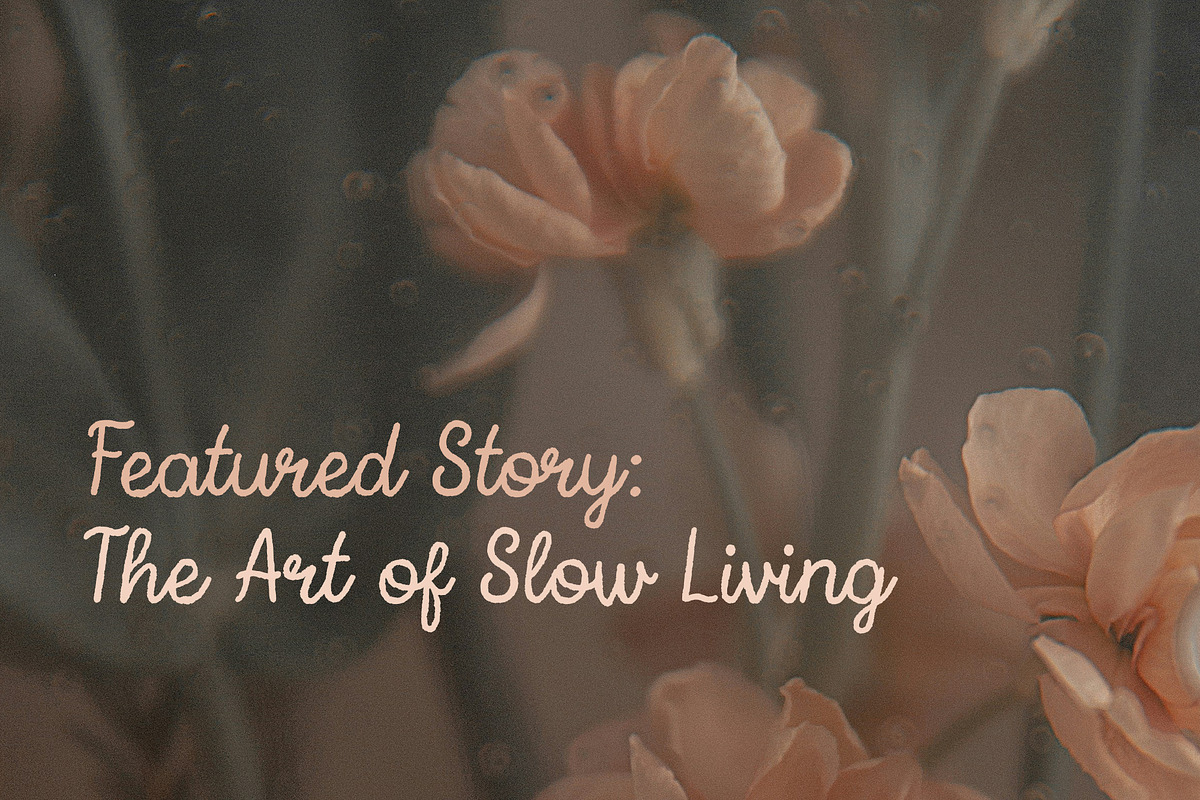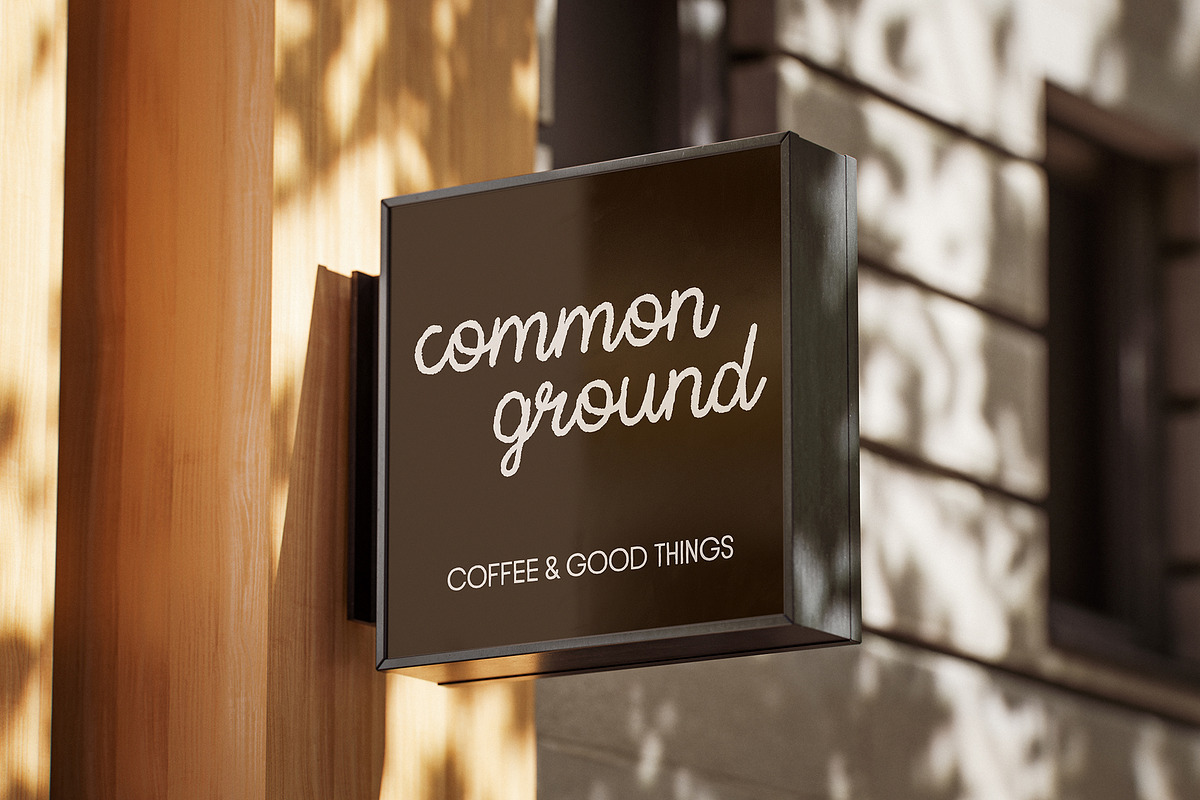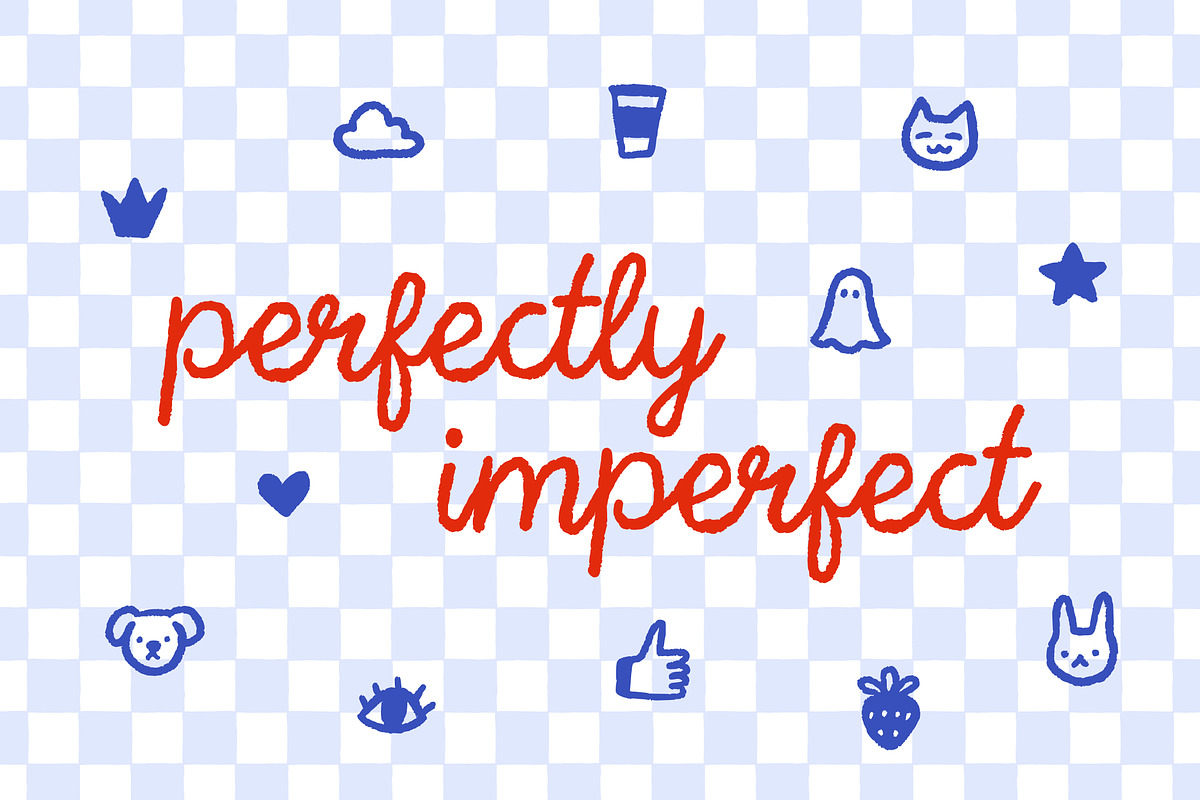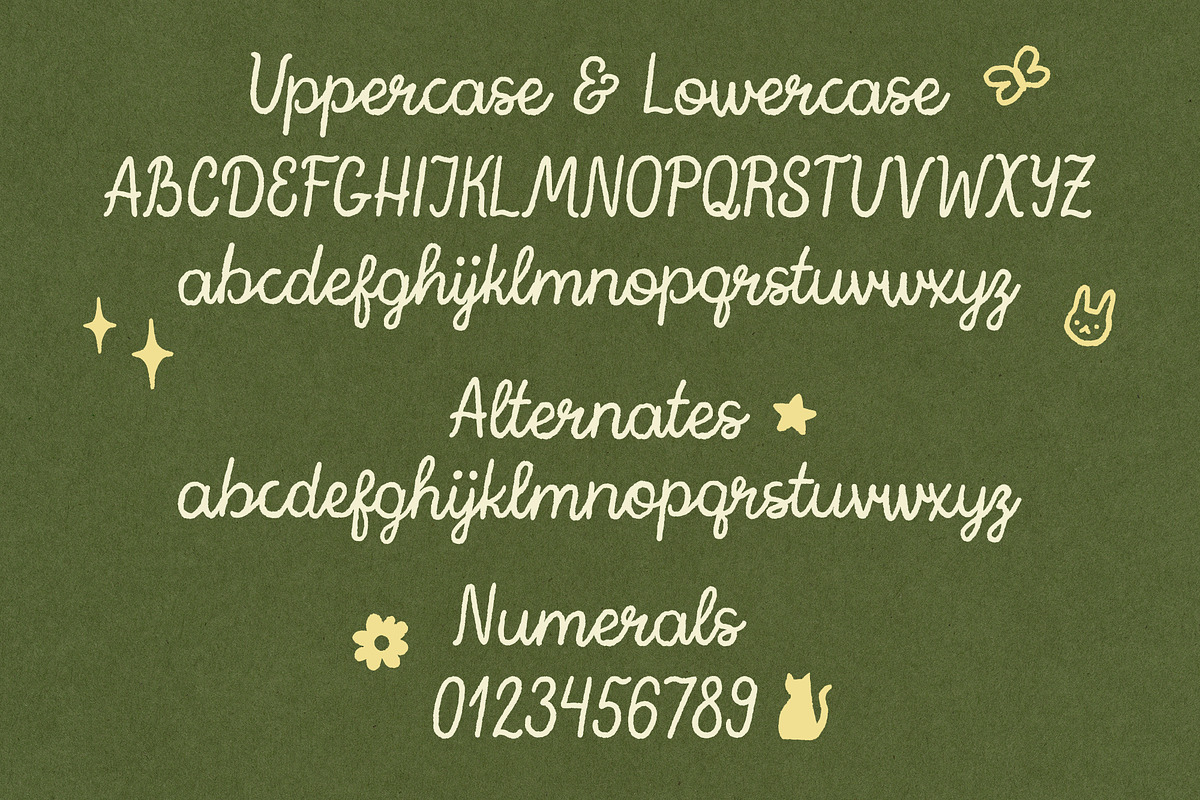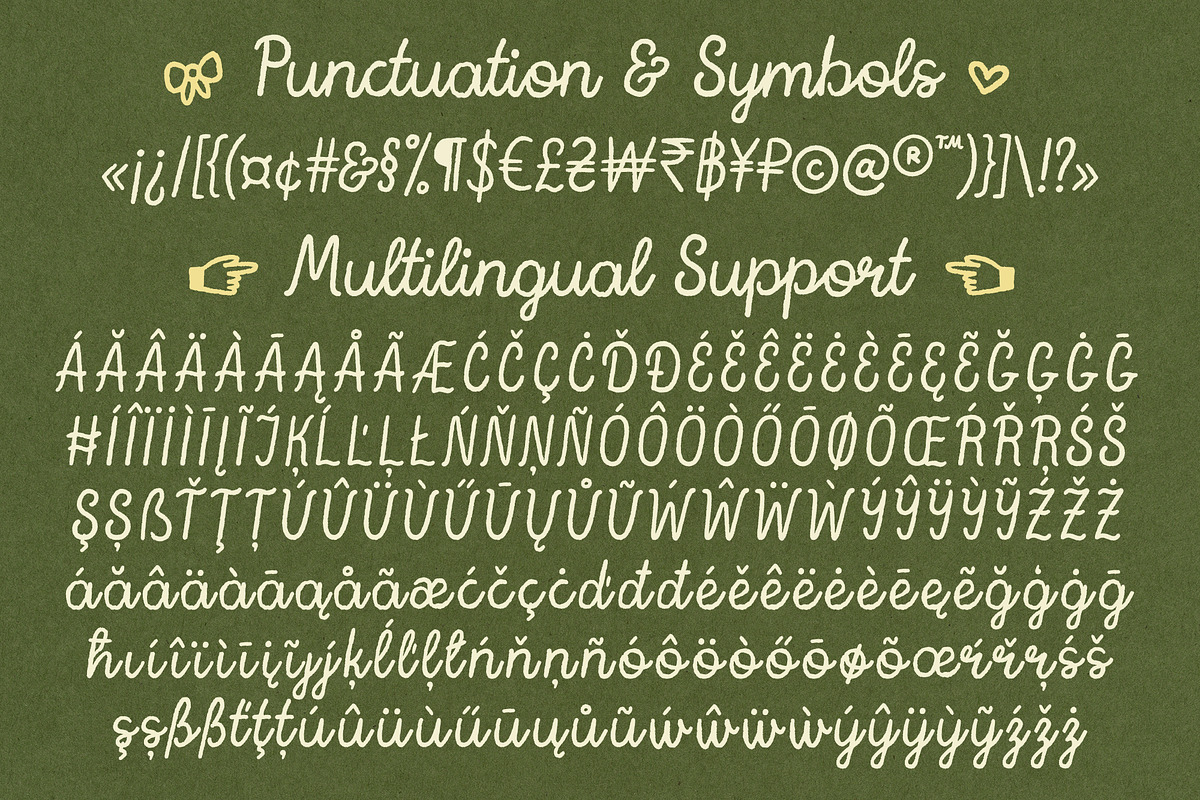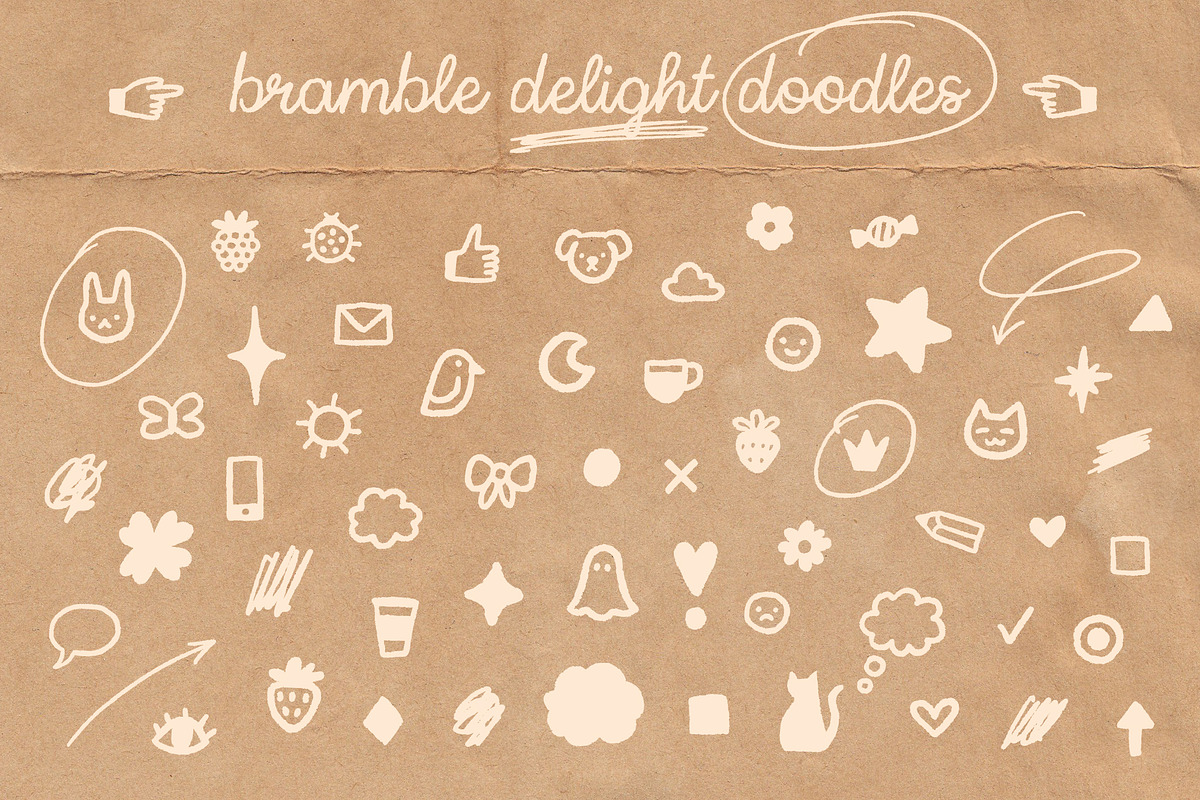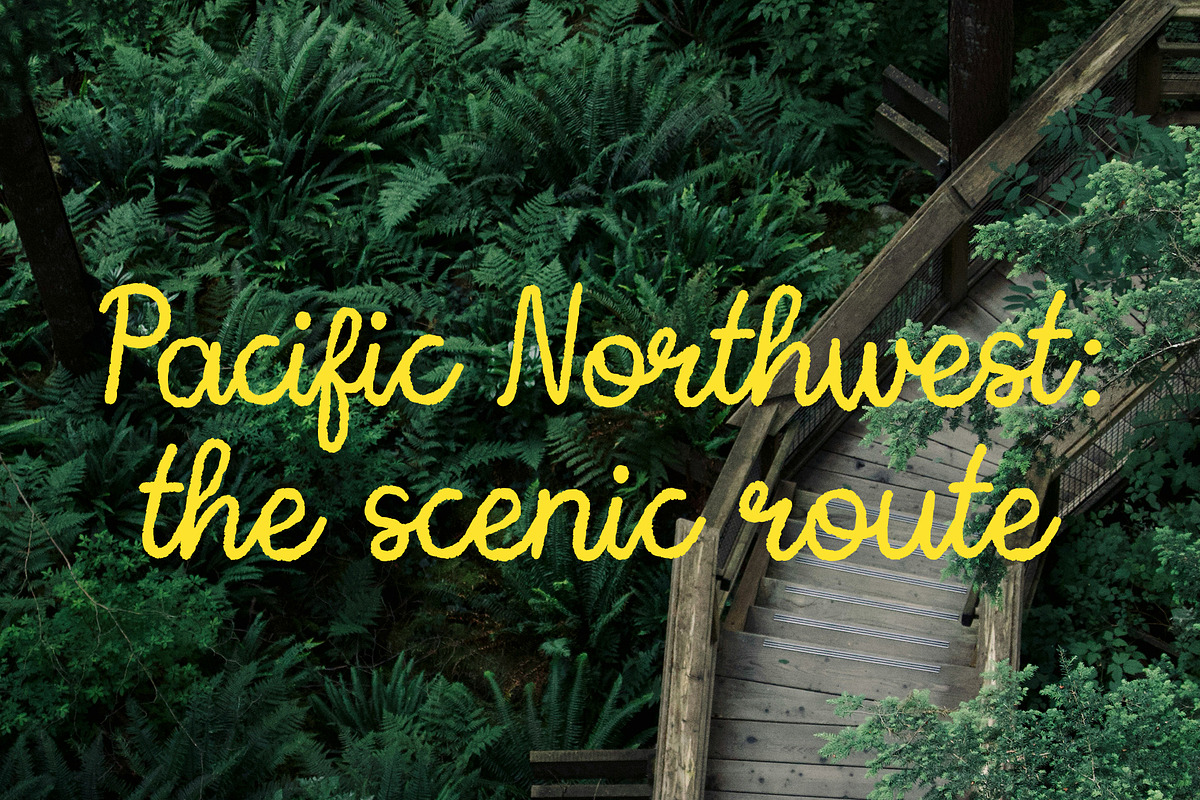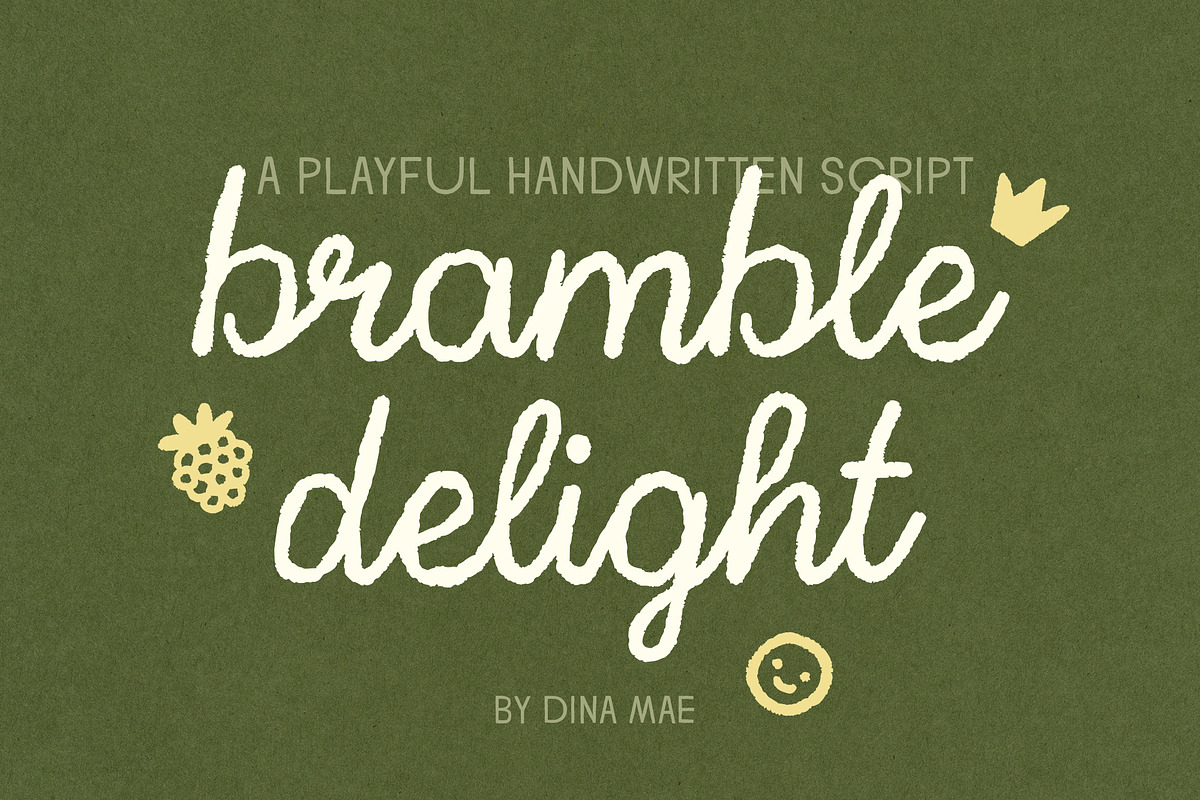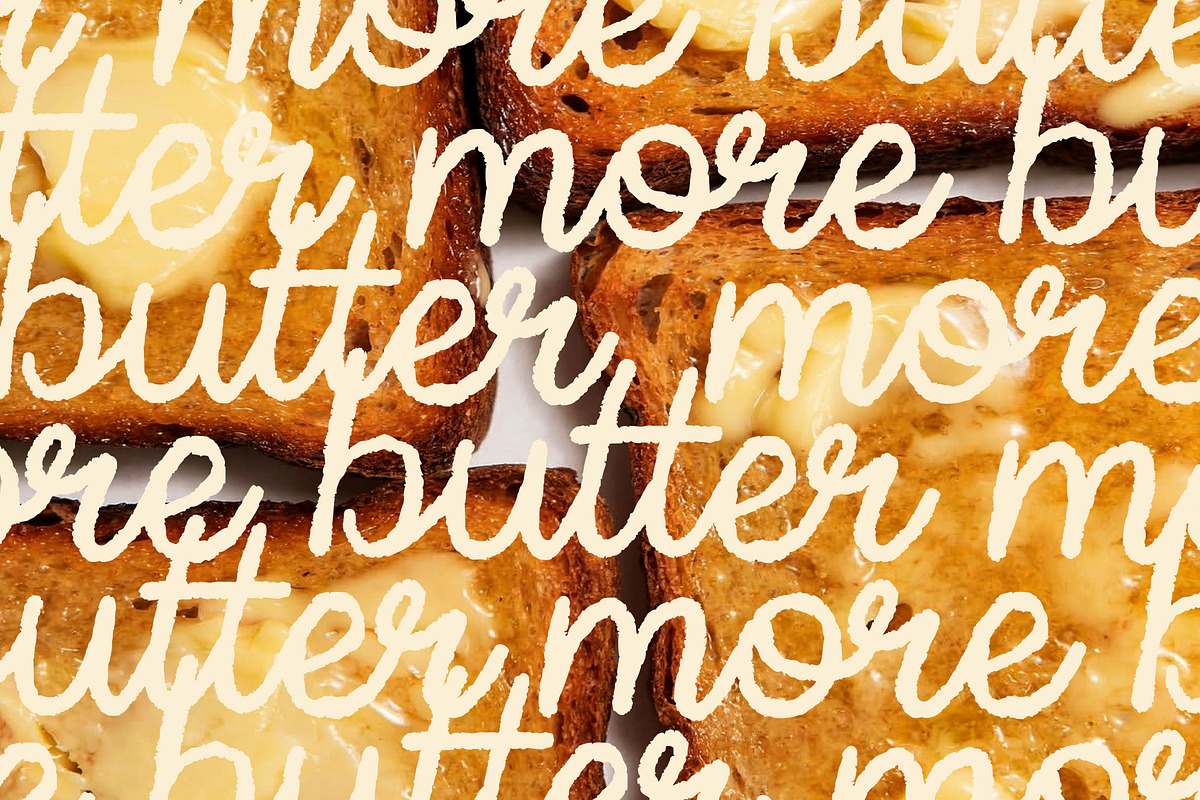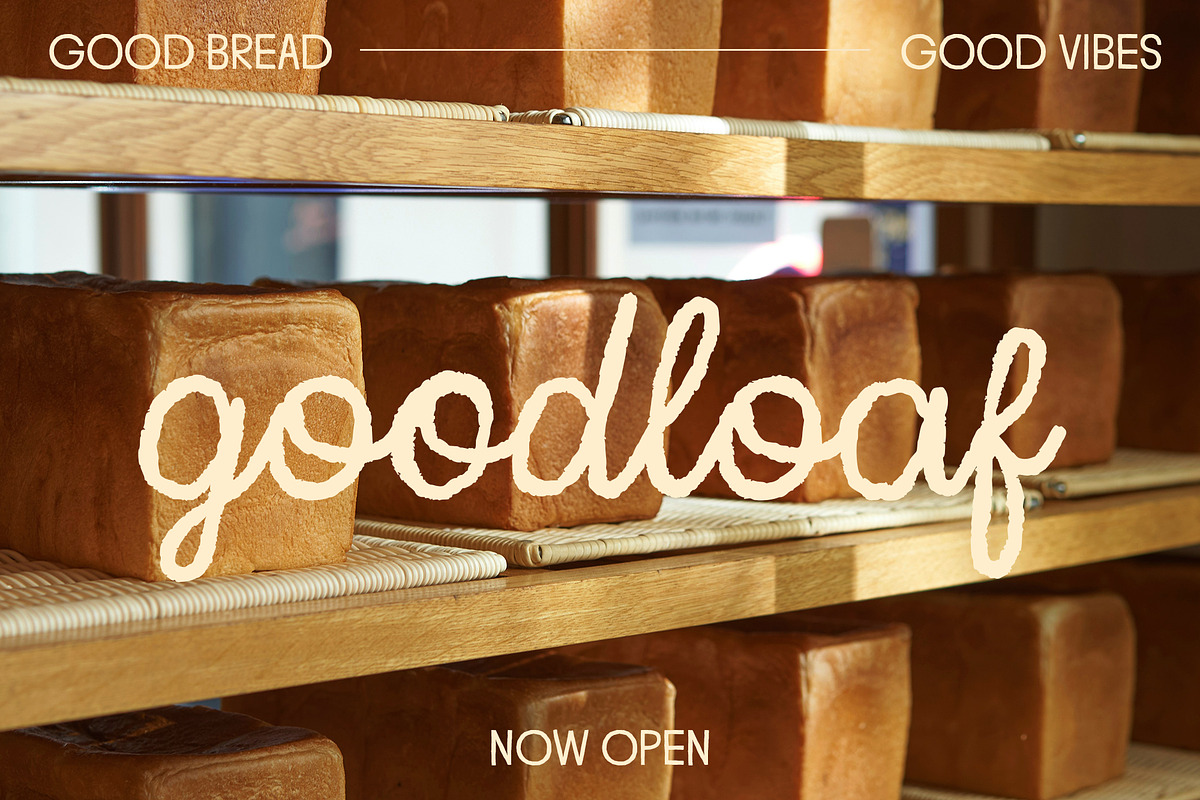
Bramble Delight Handwritten Script
Meet Bramble Delight, a playful handwritten script with a wonky, perfectly imperfect feel. It's casual and full of character, with rough inked edges and plenty of natural variation to keep things feeling genuinely handwritten. It also comes with a playful font companion full of cute hand-drawn doodles for adding a little extra fun wherever you like.
Bramble Delight feels right at home on playful branding and packaging, invitations, menus, social posts, editorial graphics, thumbnails, signage and anything that could use a little handmade personality.
Bramble Delight
Bramble Delight Doodles
uppercase & lowercase
numerals, punctuation & symbols
multilingual support
contextual alternates for repeated lowercase letters